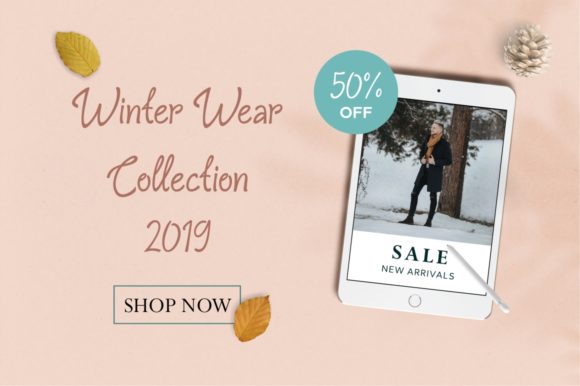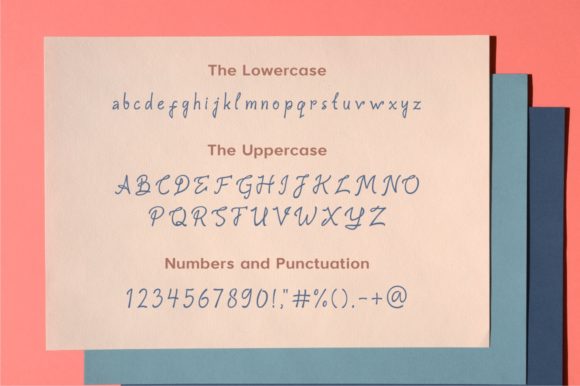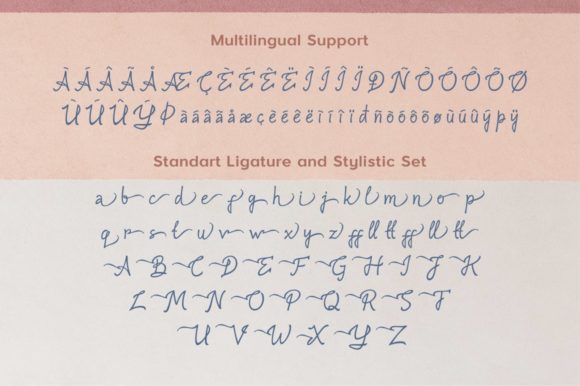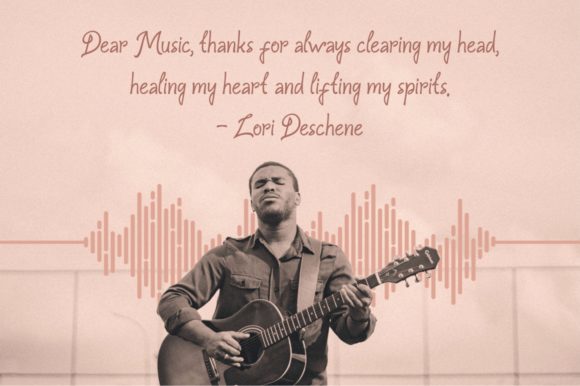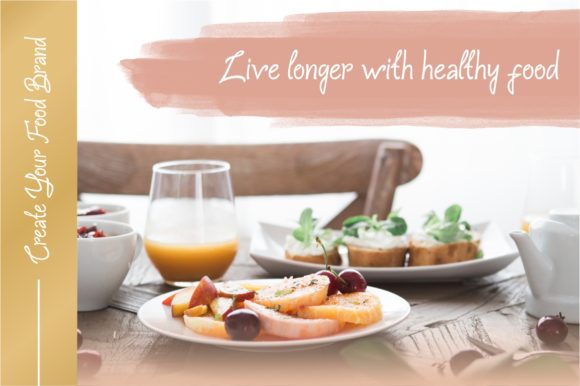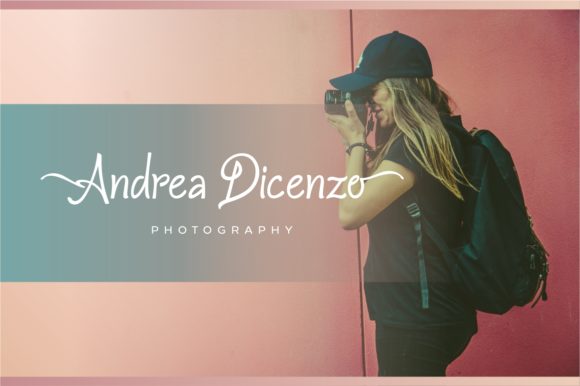
The Perfect Accent: Discovering the Amandella Font
Have you ever been stuck on a design project, struggling to find the perfect font to elevate your message? You’ve spent hours browsing through endless options, but nothing seems to capture the essence of your vision. That’s when it hits you – the perfect font is out there, waiting to be discovered. And for designers, the wait is over with the introduction of the Amandella Font.
Amandella Font is a charming, casual typeface with a touch of elegance, offering stylish alternates for both uppercase and lowercase elements. This unique feature makes it an ideal choice for designers looking to add a decorative flair to their projects. Whether you’re working on a branding campaign, creating a social media graphic, or designing a website, the Amandella Font is sure to add a personal touch that sets your work apart.
- Unique Characteristics: Elegant, cursive script with a modern feel, suitable for invitations, wedding stationery, and other formal events
Amandella Font Review
As a designer, I’ve had the chance to work with a wide range of fonts, and I must say that Amandella is a beautiful addition to any project. ✨ The elegant and feminine script style is perfect for creating a sophisticated and luxurious feel. The font is highly legible and easy to read, making it an excellent choice for body text.
Here are some of the things that work well with Amandella:
- ✨ Elegant and sophisticated script style
- ✨ Highly legible and easy to read
- ✨ Perfect for creating a luxurious and feminine feel
- ✨ Compatible with a wide range of digital platforms
- ⚠️ The font may be too ornate for some designs, potentially overpowering the content
- ⚠️ The font may not be the best choice for titles or headings, as it can be too decorative
- ⚠️ Some characters may not be available in the font, which can limit its versatility
Overall, I think Amandella is a beautiful font that can add a touch of elegance to any project. However, it’s essential to use it judiciously and consider its limitations to get the best results.
Tips for Getting the Most Out of Amandella Font
Use the Amandella font for headings and titles to add a touch of elegance and sophistication to your designs. Experiment with different font sizes and styles to create visual interest. Combine the Amandella font with other fonts for a unique and eye-catching look.
The Amandella font is ideal for use in branding materials such as business cards, letterheads, and brochures. It is also suitable for use in digital designs such as websites and social media graphics. The font’s elegant and sophisticated style makes it perfect for use in high-end marketing materials and luxury brands.